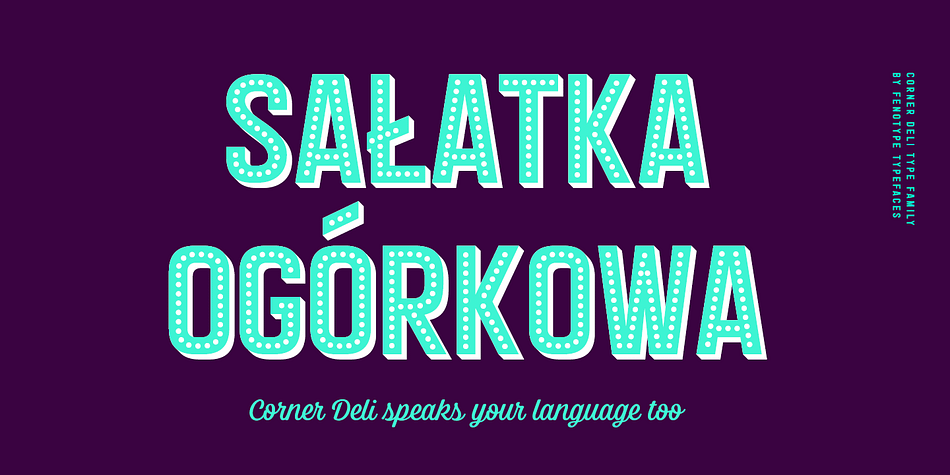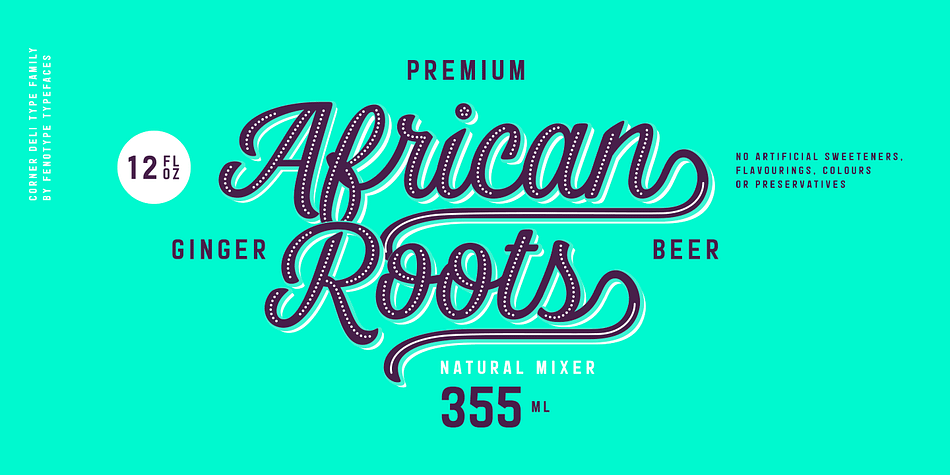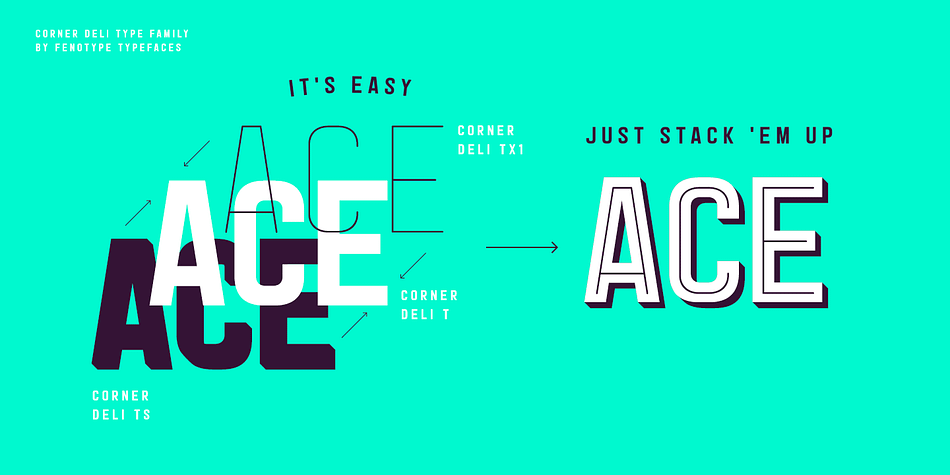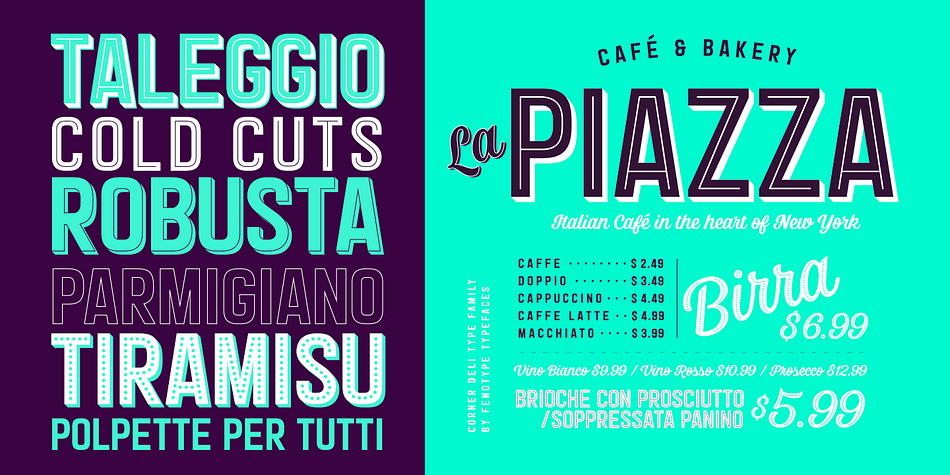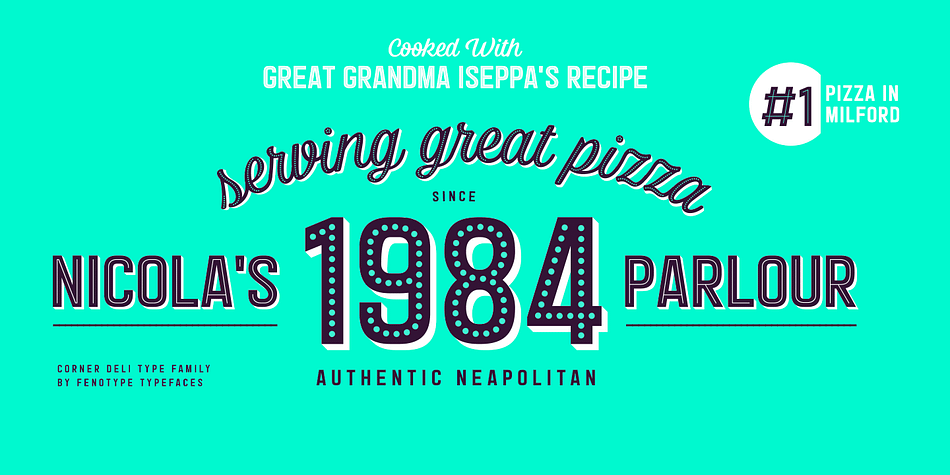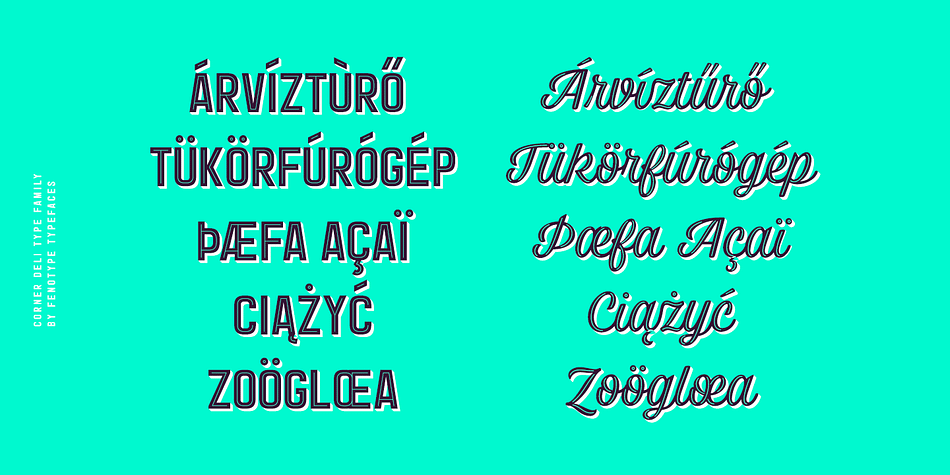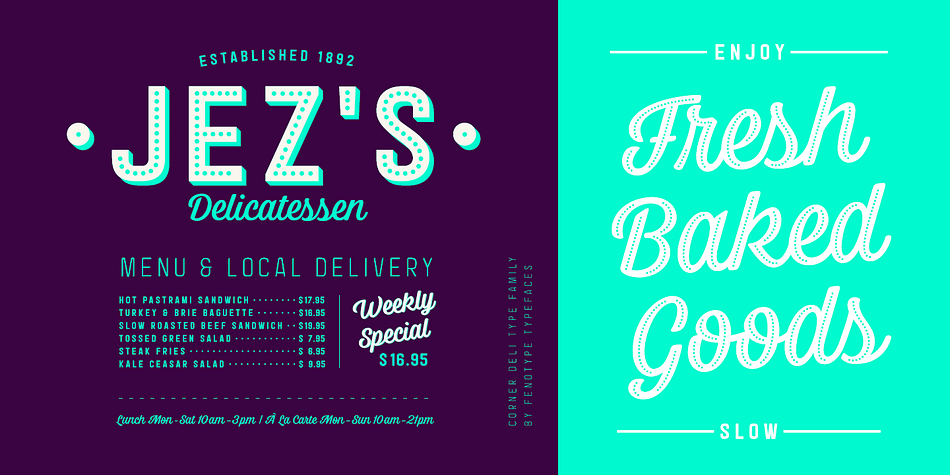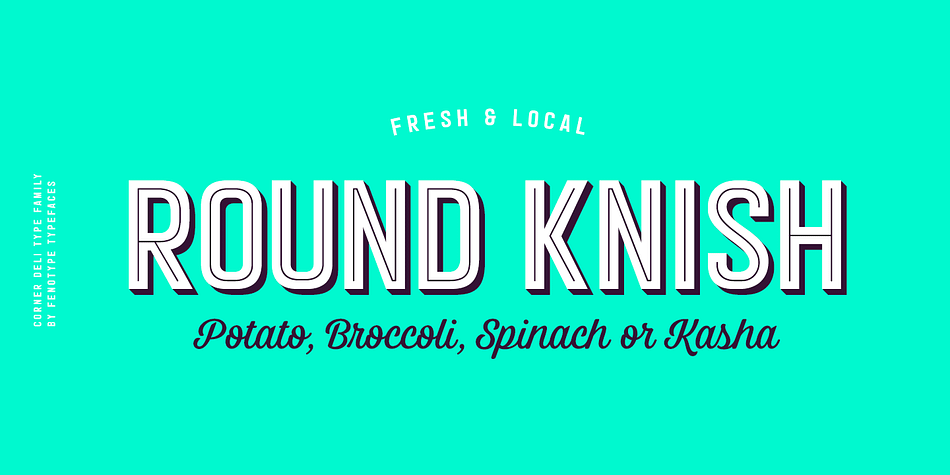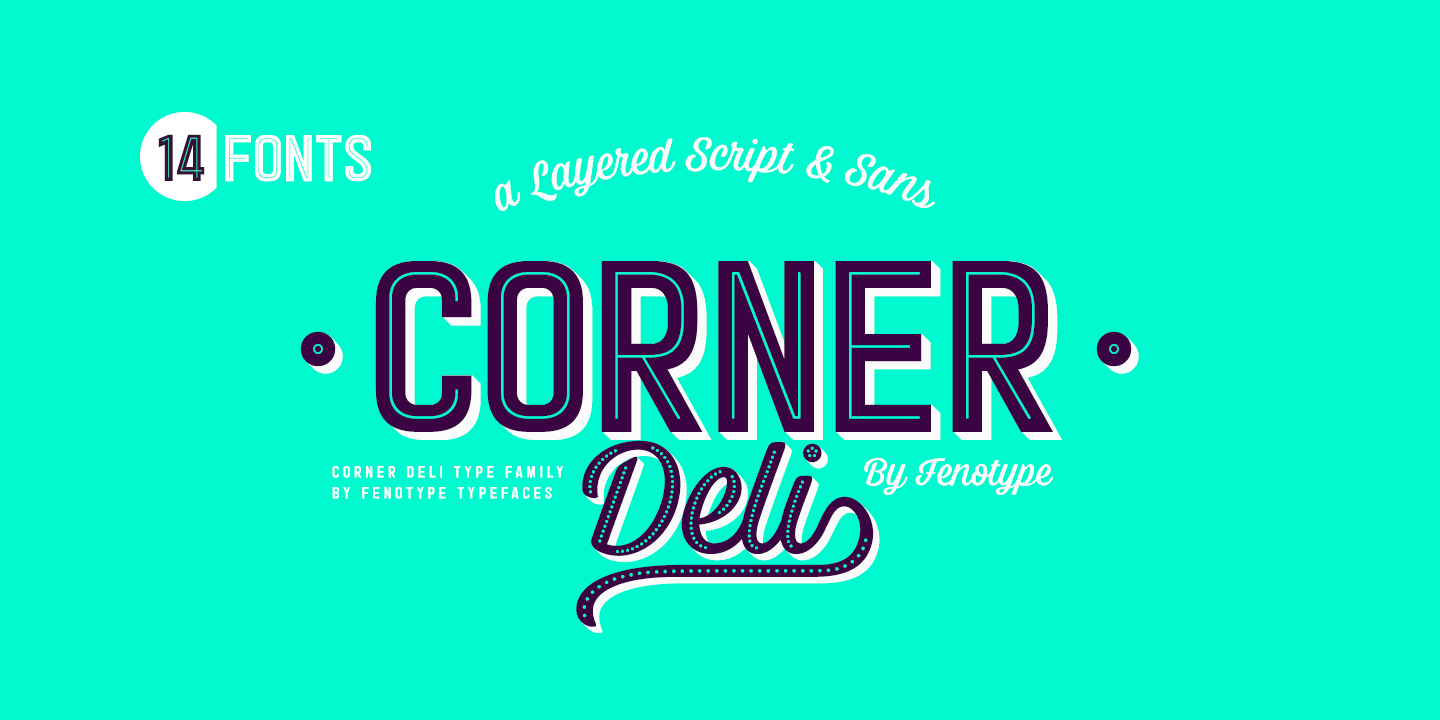
Designed by Emil Bertell, Corner Deli is a brush script, display sans and dingbat font family. This typeface has fourteen styles and was published by Fenotype.
Corner Deli is a layered script & sans pack inspired by American commercial sign culture.
Corner Deli has three base fonts and four layer options for each + there is a set of extra end swashes for Corner Deli script and layers for them too. Corner Deli is easy to use, just write the same text with different layer-fonts and colors and stack them on top of each other: check the gallery for more detailed instructions.
Corner Deli is a great family for any display use, especially for branding, packaging, menus & posters from print to online and it works stunning even without the layers.
Styles | Brush Script, Display Sans, Dingbat |
Designer | Emil Karl Bertell |